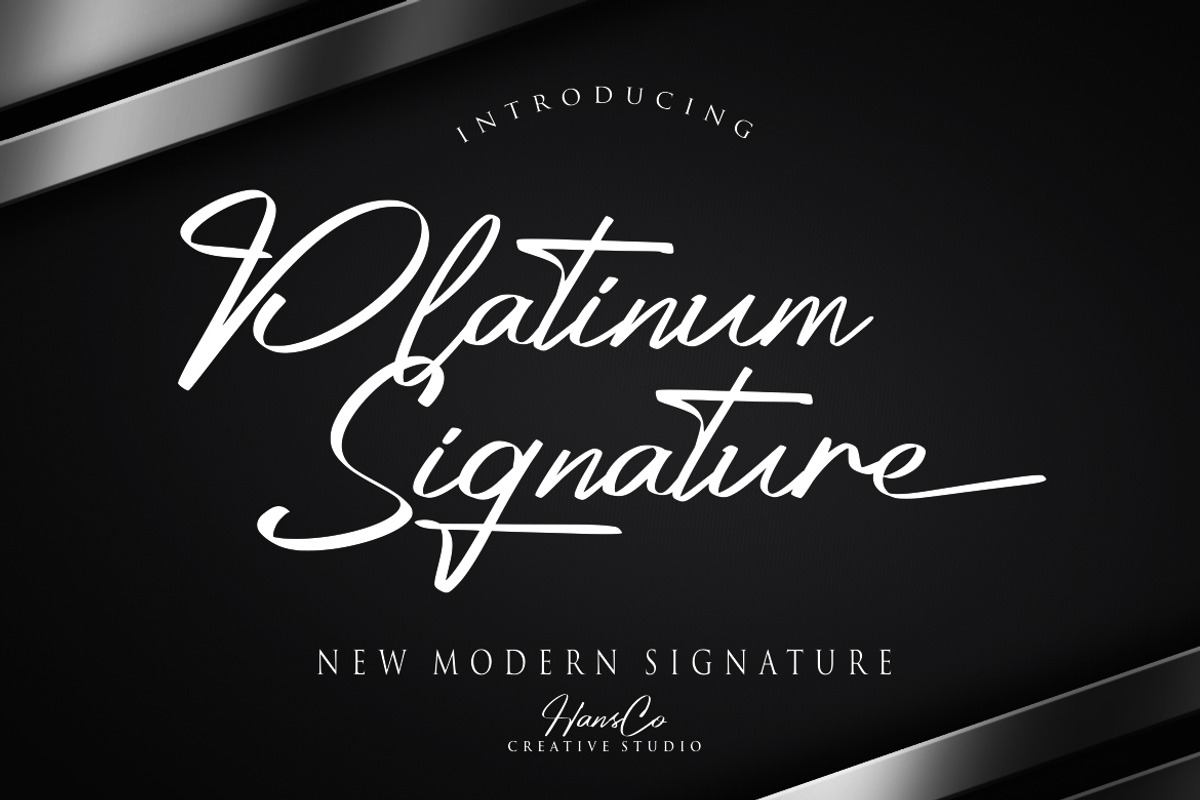
The Platinum Signature Font Free Download is a sophisticated and elegant script font that adds a personal, handwritten touch to your designs. With its smooth, flowing lines and refined letterforms, this font is perfect for creating logos, invitations, branding materials, and more. Its signature-like style brings a sense of luxury and authenticity, making it ideal for high-end projects, weddings, or personal branding. Please note, for commercial use, a license purchase is required. However, you can easily download the Platinum Signature Font Free Download for free for personal use and test its beauty in your designs. Whether you're working on invitations, business cards, or creative branding, this font will elevate your work with its elegant and polished script. Download the Platinum Signature Font Free Download today and give your typography a refined, signature-inspired look.